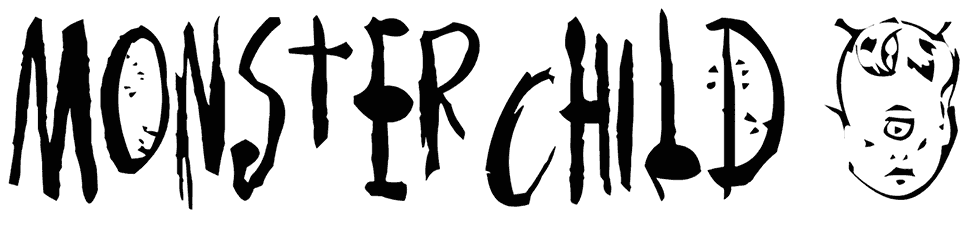
Monsterchild Font
Monsterchild is inspired by chaos and rebellion, and combined with the right background. It’s a font that screams aggression. This horror font is an angry handwriting with a violent pen in dramatic movement and is an excellent choice for use when you want to convey strong emotions.
This crazy font can convey danger well in the form of posters, animations, or greeting cards; it does not need small letters.